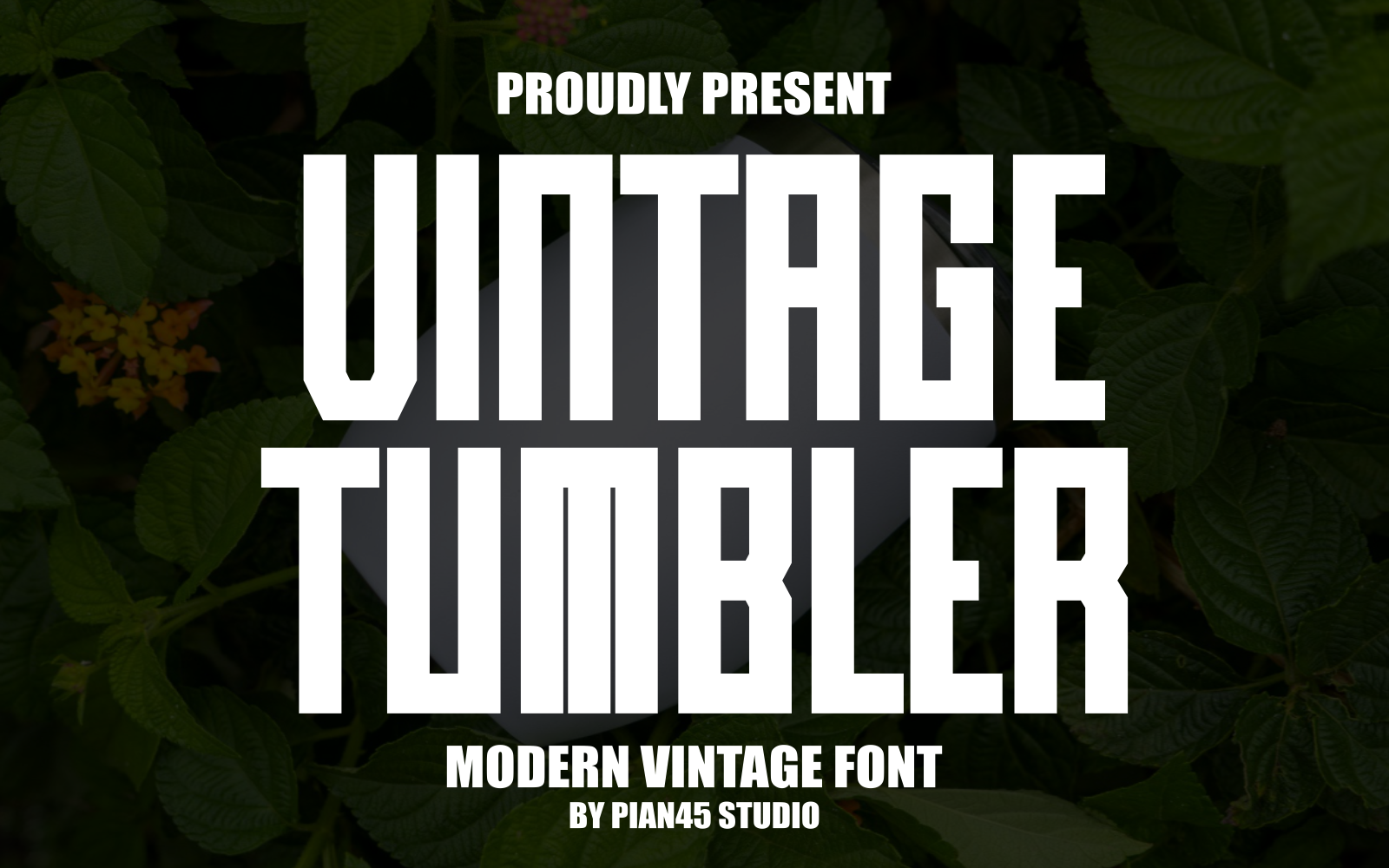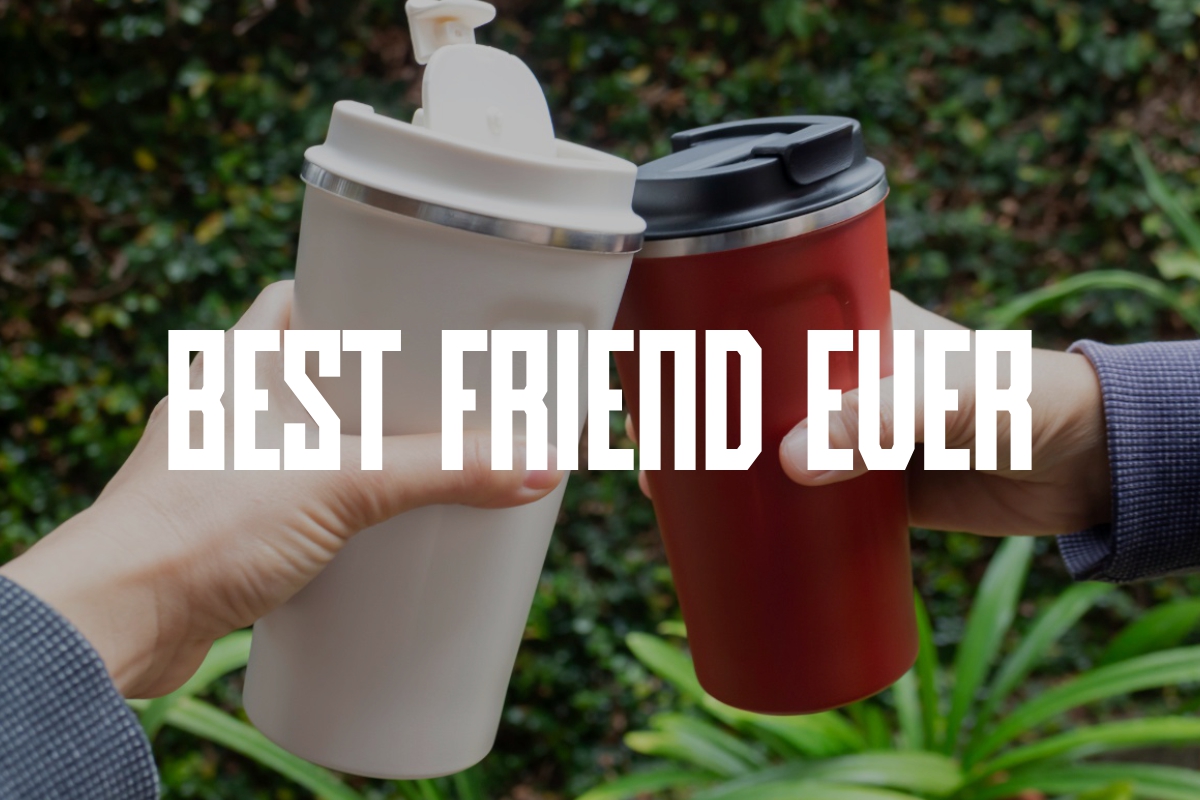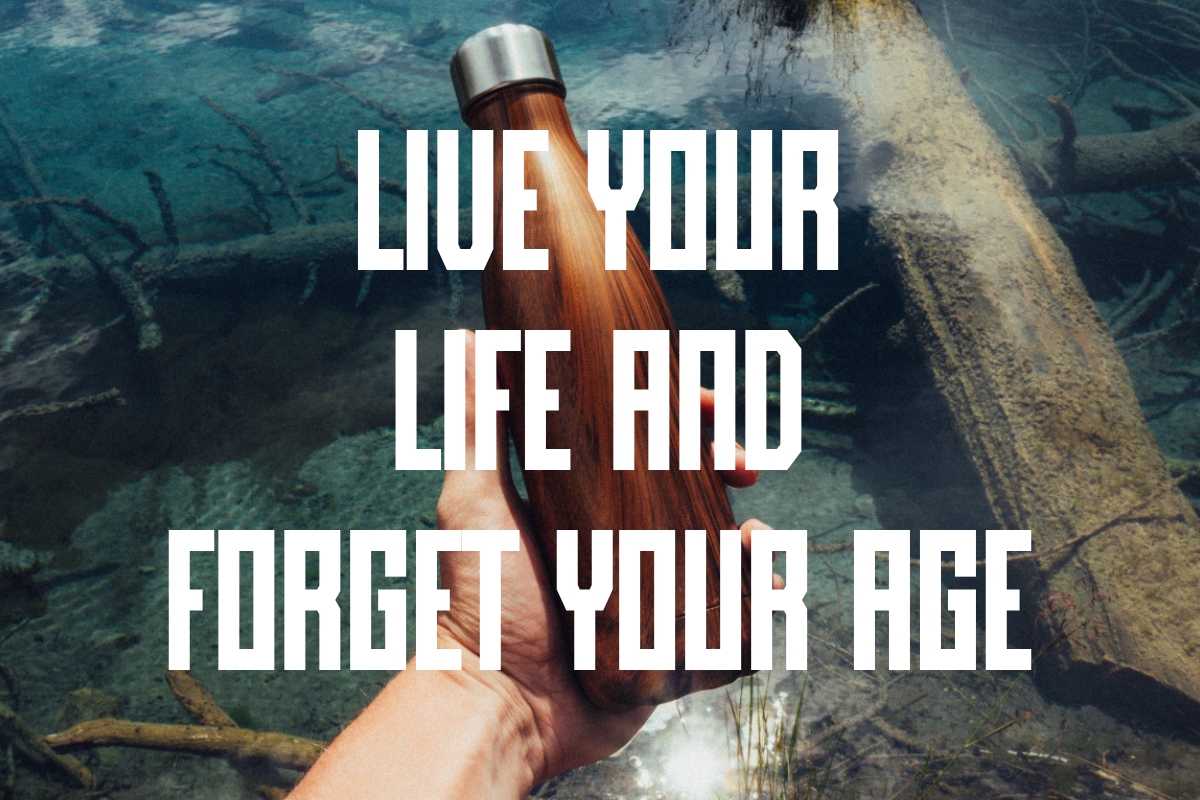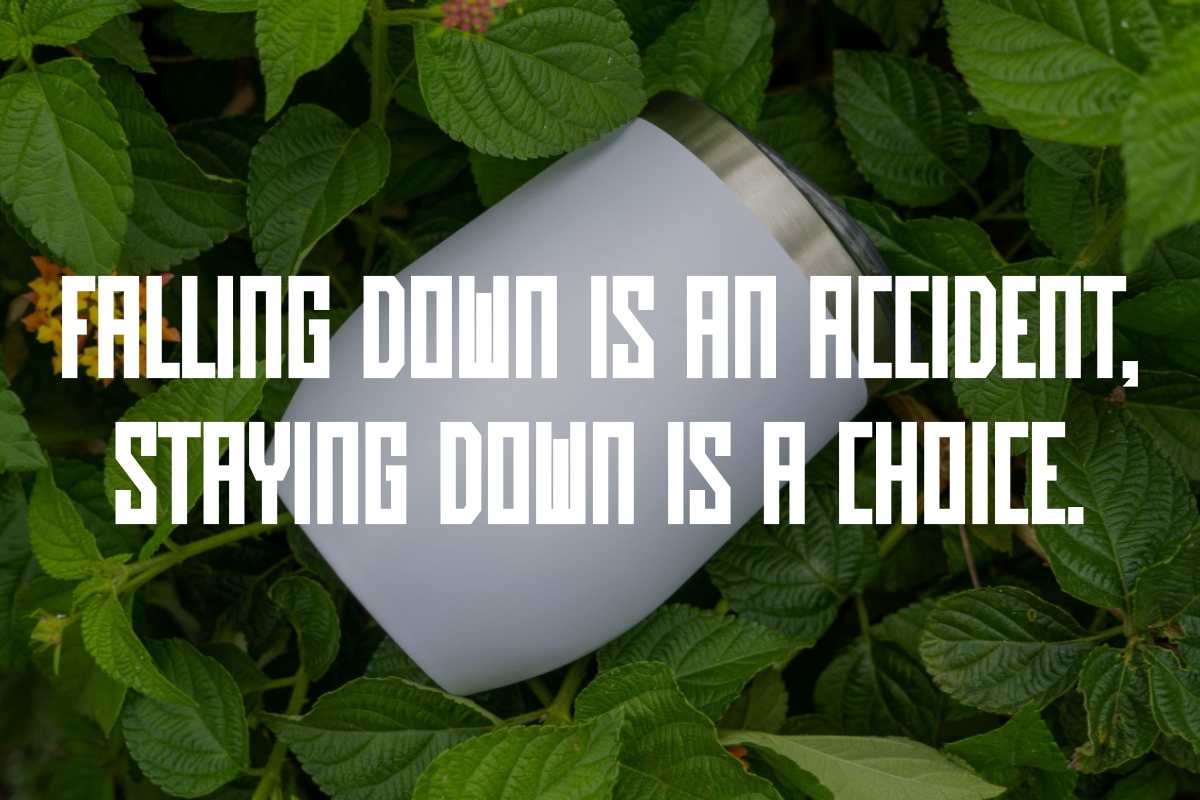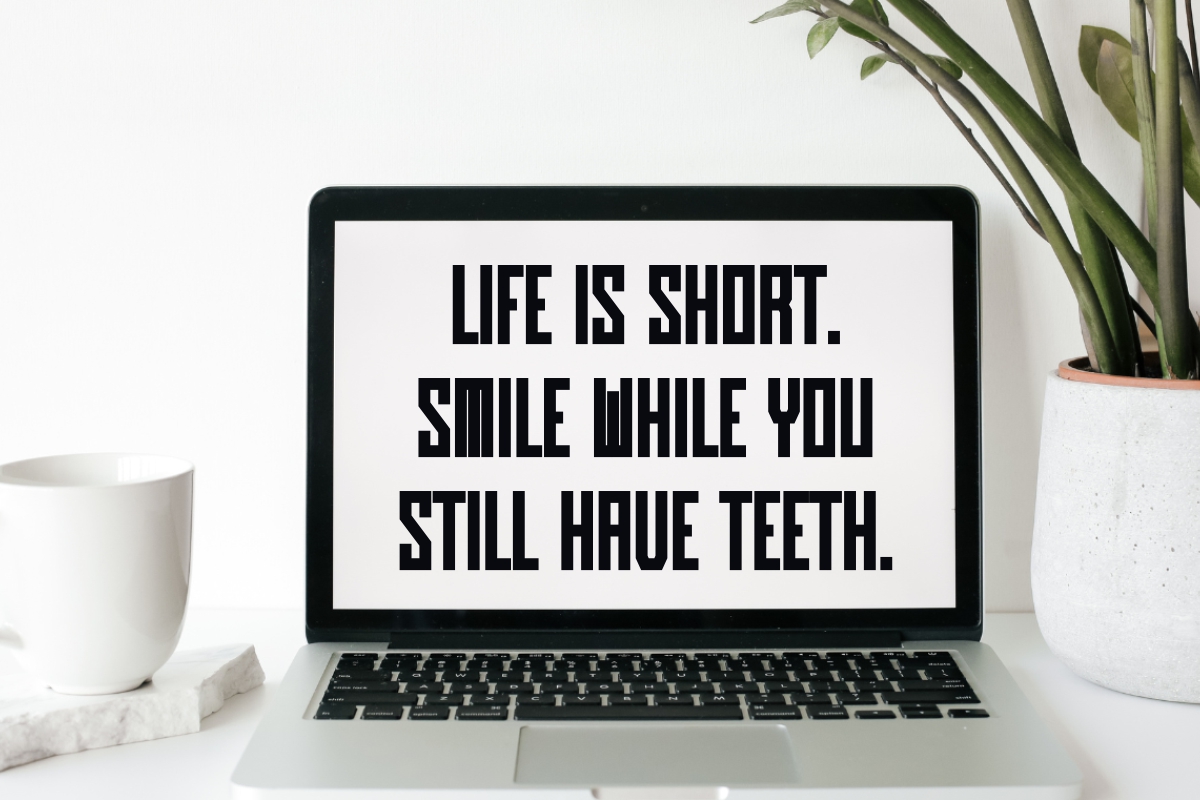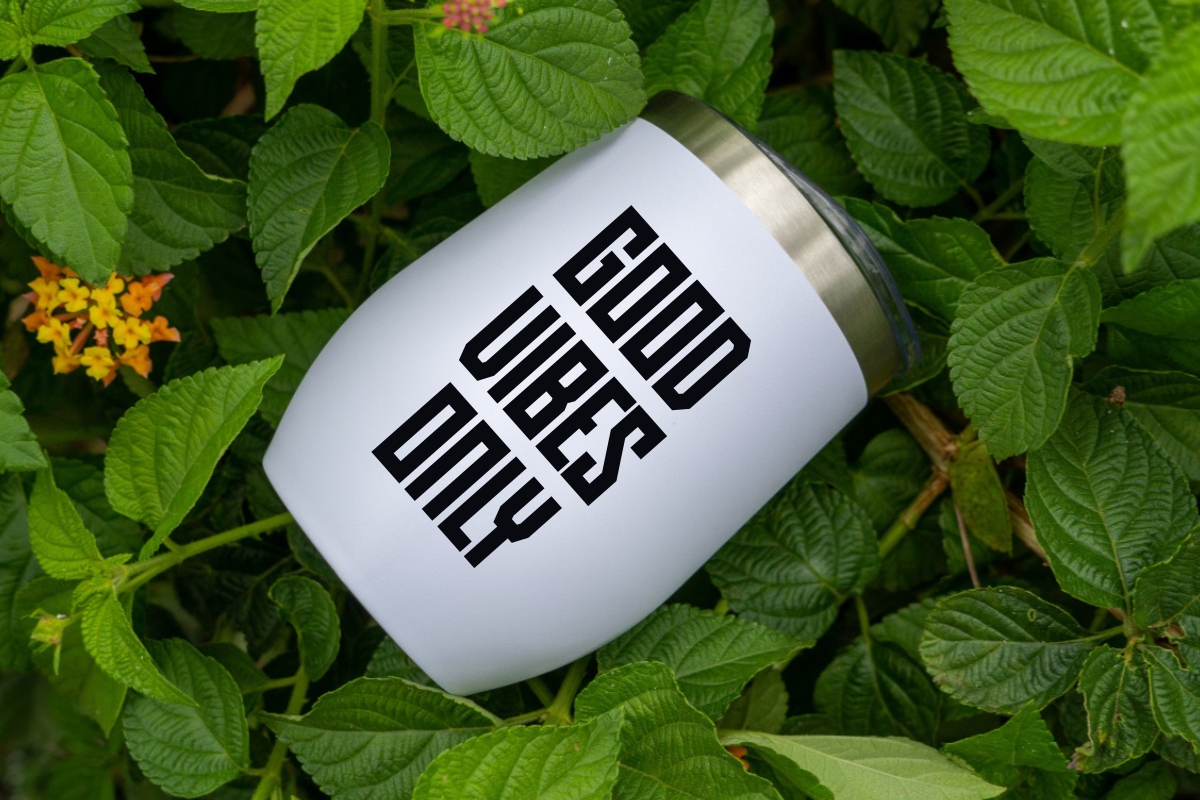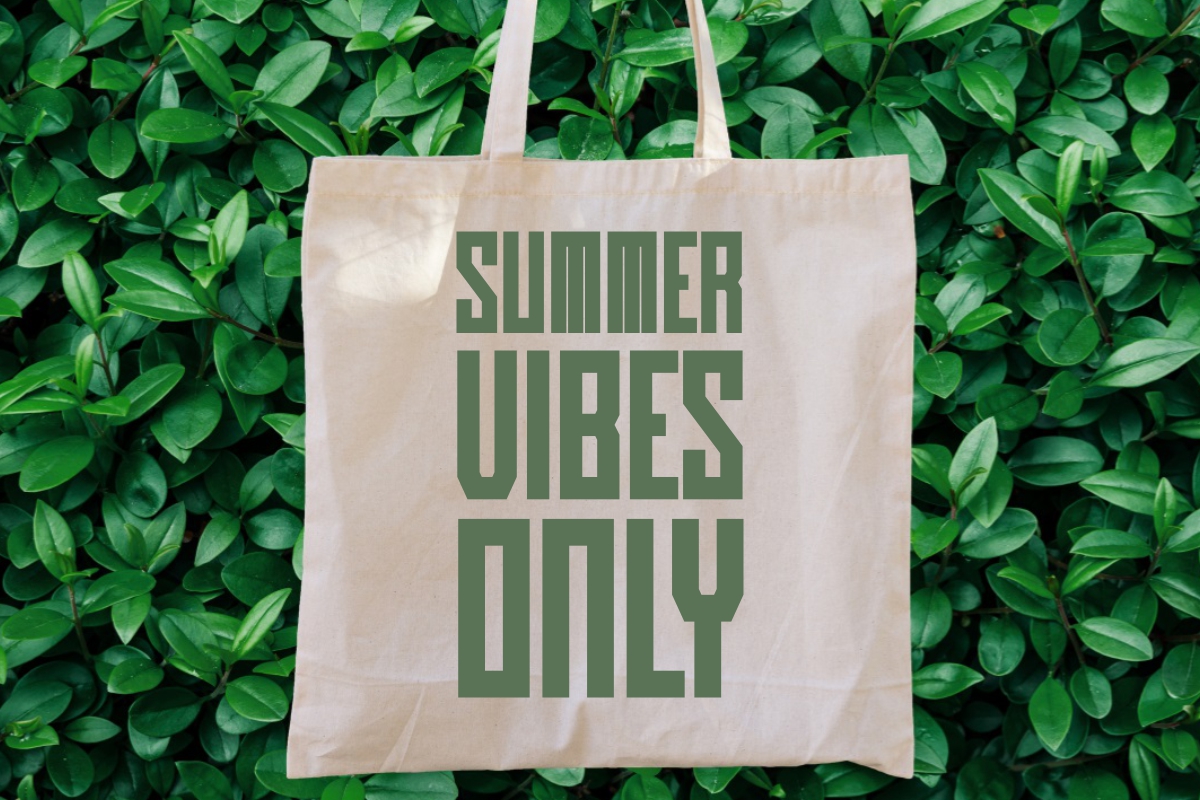
Vintage Tumbler - Modern Vintage Font
Vintage Tumbler is a powerful and assertive modern vintage display font, built with strong, condensed letterforms that command immediate attention. Its robust, all-caps design features clean, slightly industrial edges, creating a timeless yet contemporary feel perfect for impactful branding. Ideal for distillery labels, coffee packaging, merchandise, event posters, and bold headlines, this typeface conveys reliability, heritage, and uncompromising style. Use Vintage Tumbler to give your designs a tough, distinctive, and authentically retro-modern edge.